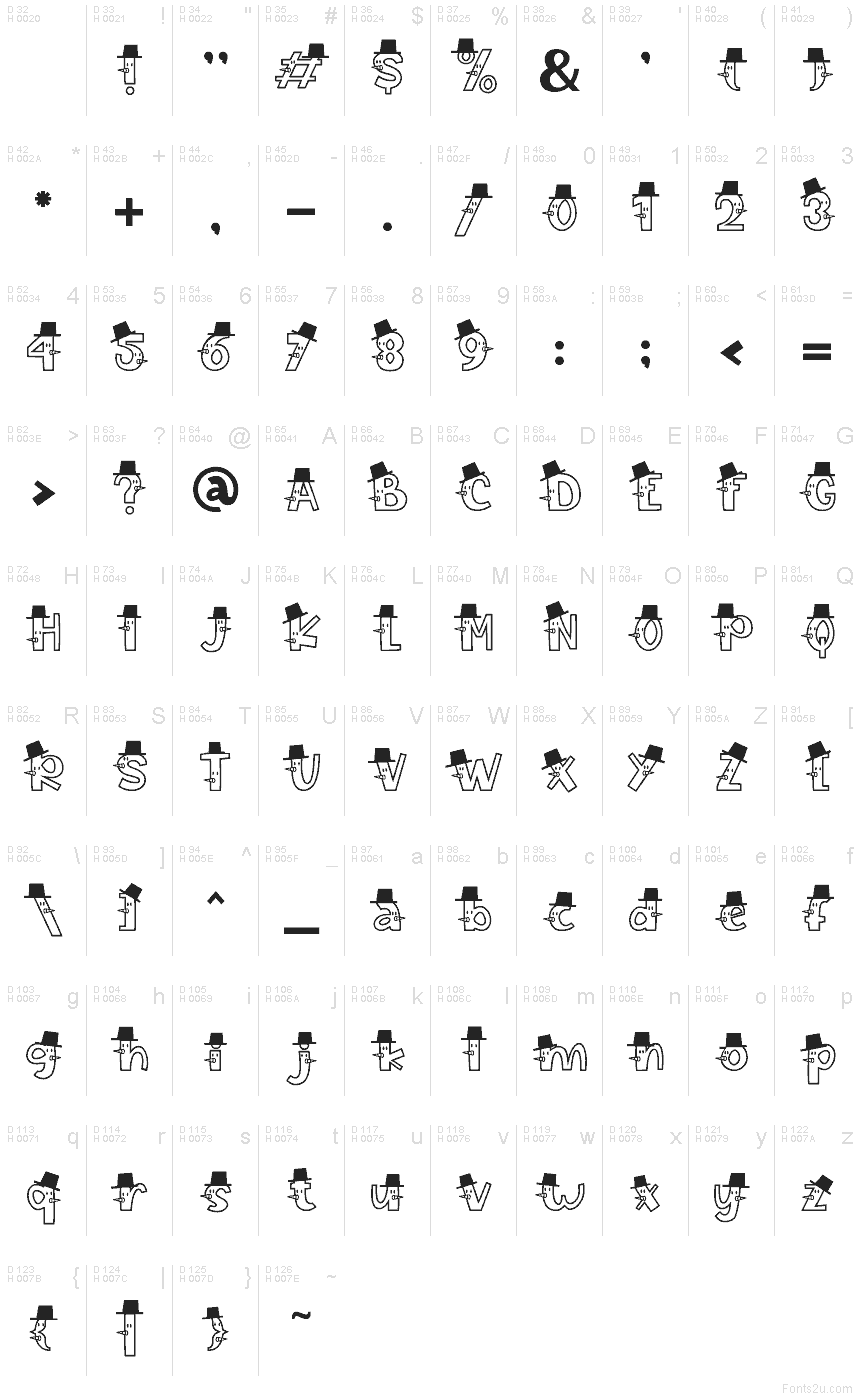
Frosty Faktur Snowman
Frosty Faktur Snowman font by PutraCetol Studio is a free holiday decorative outlined typeface that turns every word into a row of cheeky snowmen. Each letter is a plump, hand-drawn outline with tiny carrot noses, coal-button details, and jaunty top hats tilting at different angles, giving the text a wobbly, snowy charm. The line work feels like it was sketched with a black marker on crisp winter paper, playful and a little bit mischievous.
Using Frosty Faktur Snowman, your titles instantly feel like a kids’ Christmas book cover or a cozy classroom bulletin board. This free font shines on party invitations, gift tags, holiday worksheets, social media graphics, craft printables, and festive website headers. Keep it large so the snowman details stay clear, and pair it with a simple rounded sans-serif for body text to keep things readable while the letters do the smiling.